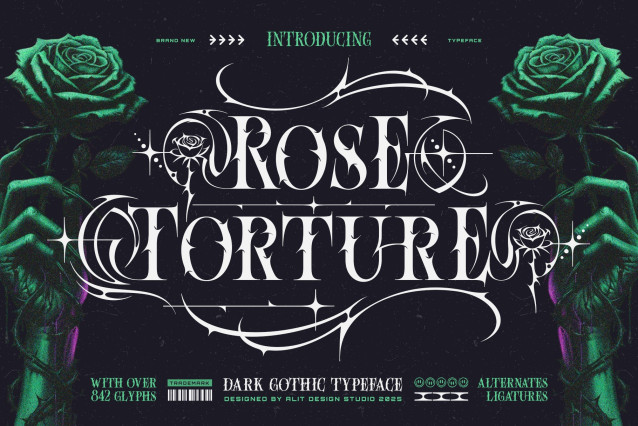
Rose Torture Font, a stunning new Dark Gothic Typeface from Alit Design Studio. This font is born from the shadows, masterfully blending the rigid structure of classic gothic lettering with the organic, dangerous beauty of thorns, barbs, and cursed roses.
Rose Torture is not just a font; it’s a complete design arsenal. The basic character set provides a strong, all-caps (unicase) foundation—sharp, legible, and impactful. But the true power is unleashed through its vast library of alternates. With over 842 glyphs, this typeface allows you to transform your text into a breathtaking work of art.
Explore multiple Stylistic Sets (SS01, SS02, SS03, SS04) that encase your letters in intricate, thorny frames and sharp, elegant swashes. Each alternate glyph is meticulously drawn, evoking a sense of “cursed beauty bound in agony and power.” Whether you’re designing a metal band logo, a brutalist poster, or an arcane book cover, Rose Torture provides the tools to create something truly unique and unforgettable.